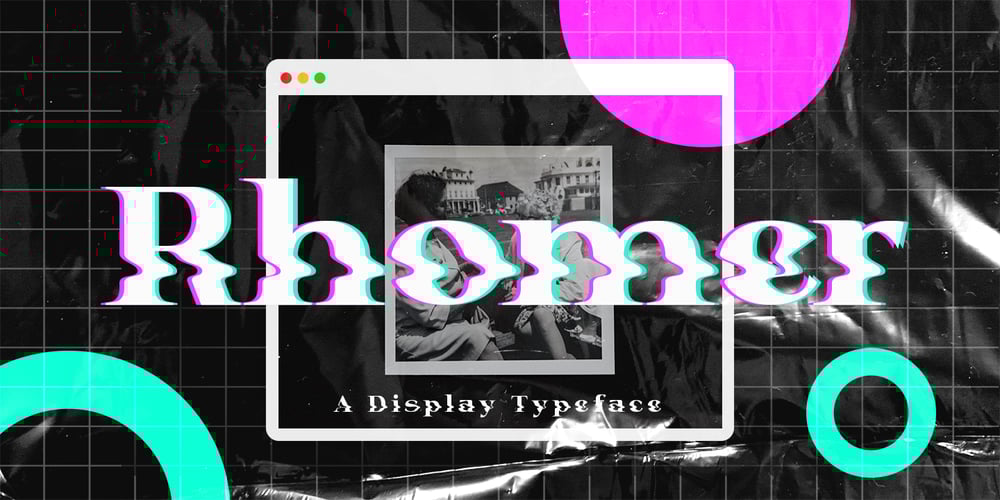
Rhomer Font Family was designed by Fajar Gunawan and published by Fargun Studio. Rhomer contains 1 styles and family package options. Introducing Rhomer Serif FontThis beautiful font will engage your audience and make your promotions and projects stand out. This font is designed with a bada curve in the middle so it looks really cool and brings your brand to life and add a touch of modernity and style with the Rhomer Serif Font. Use it for titles, logos, business cards, printed quotes, all kinds of invitations, cards, packaging and branding of your website or social media.Our font always includes Multilingual option to make your branding globally recognized.